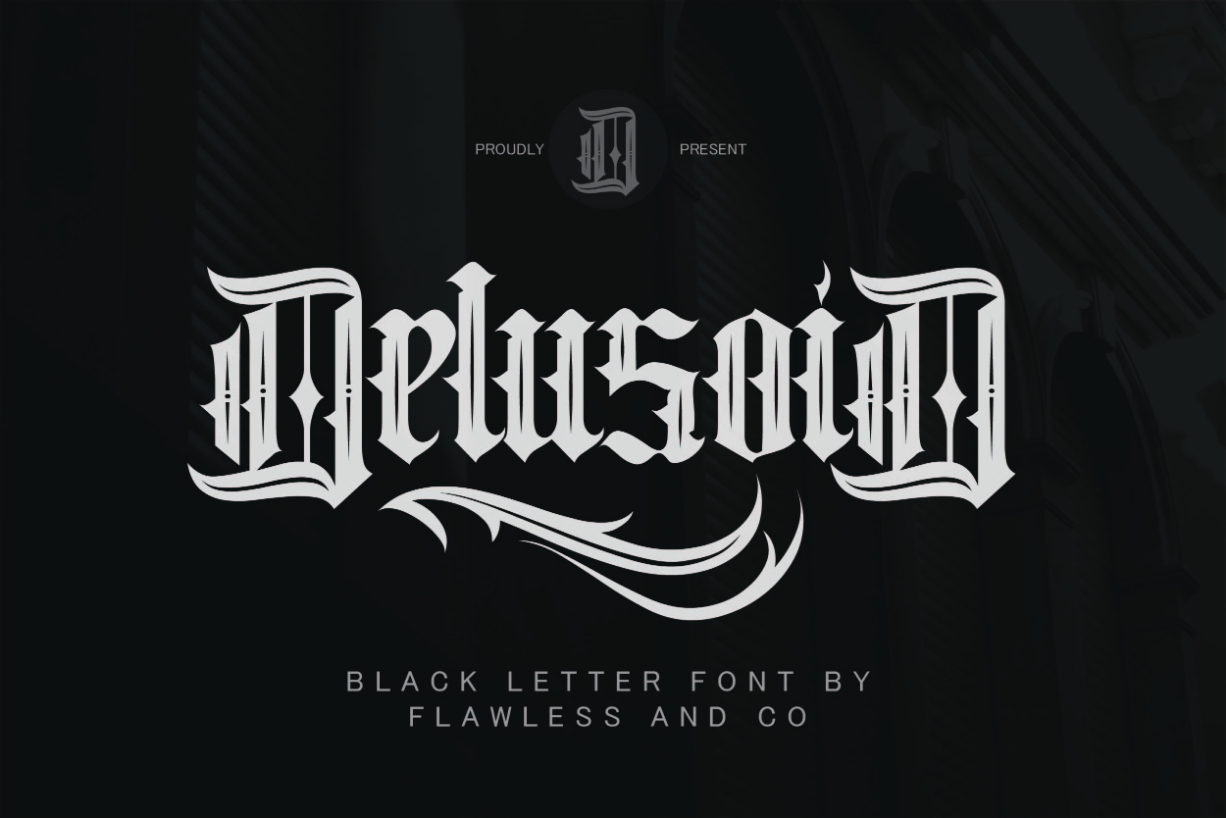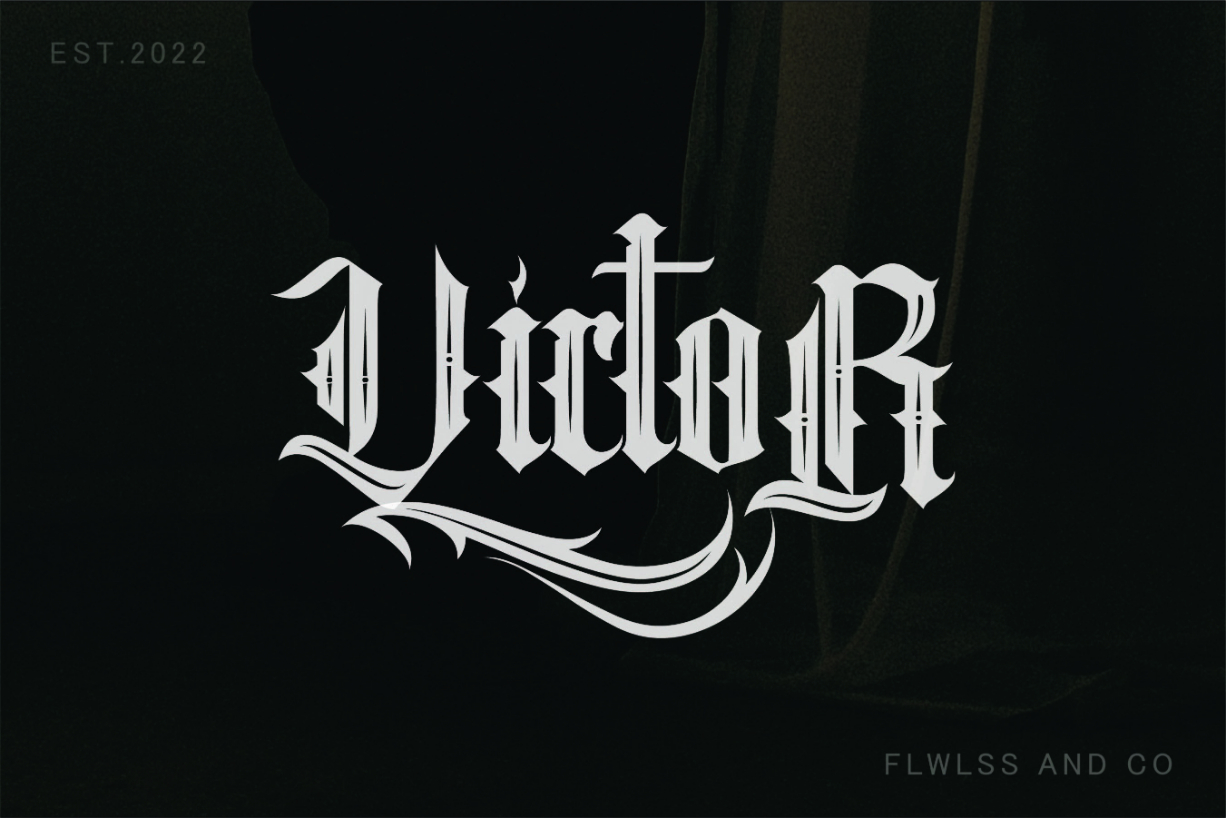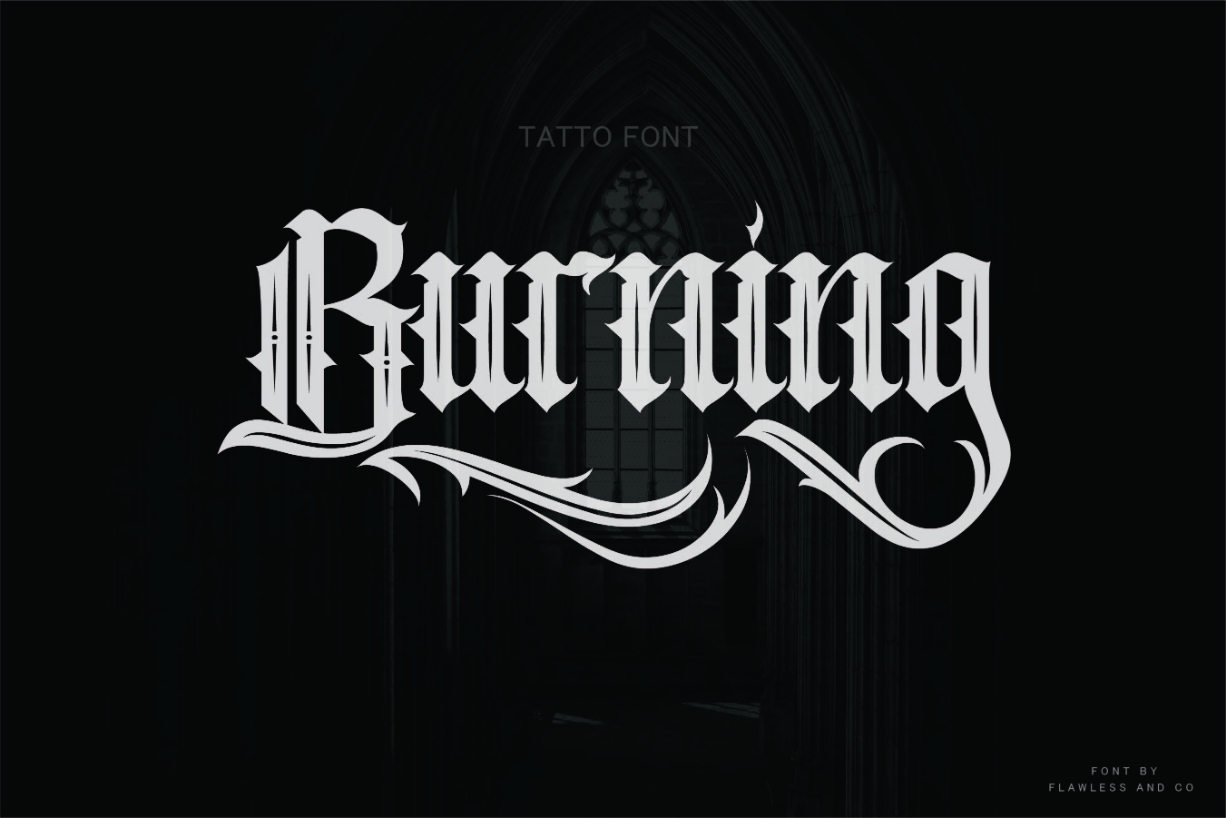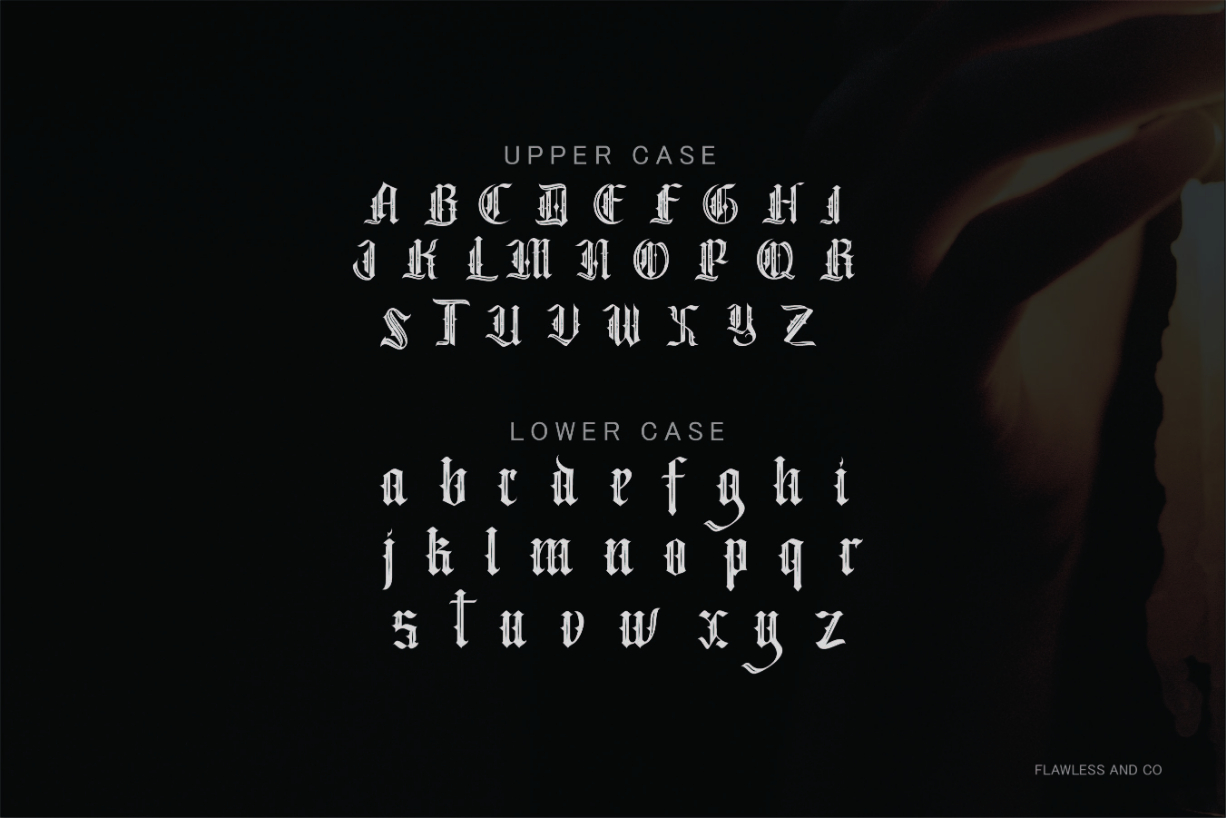
About Delusoid Font
Delusoid is the first Blackletter font with an authentic and unique style on each character that gives a bold touch to any desig. You can create a poster design, branding materials, t-shirts, business cards, logos, photography, quotes, and more. Try out some alternate characters for another visual result!